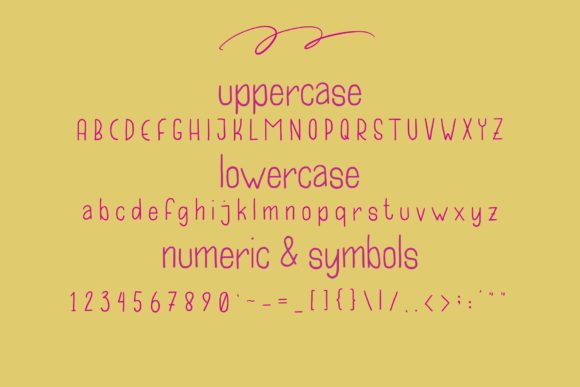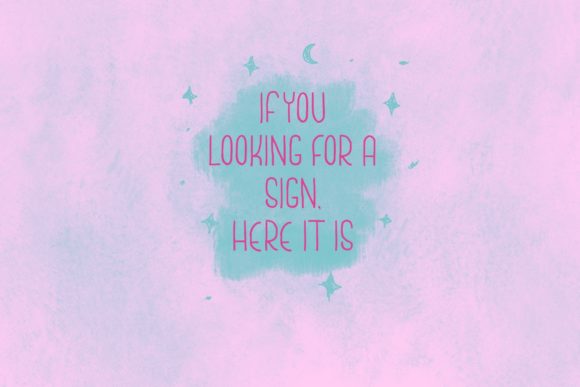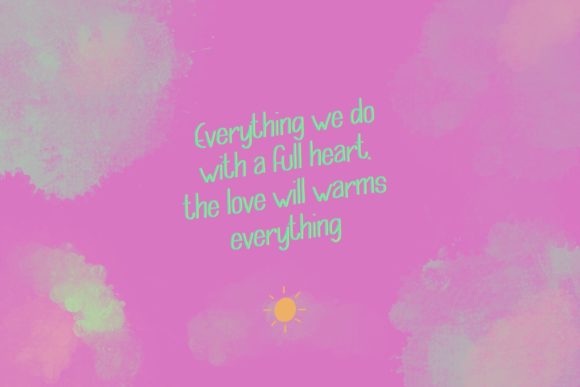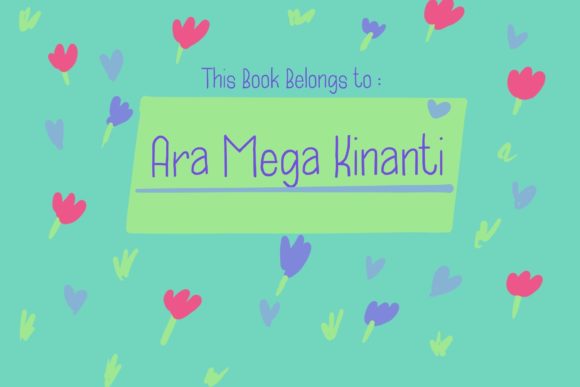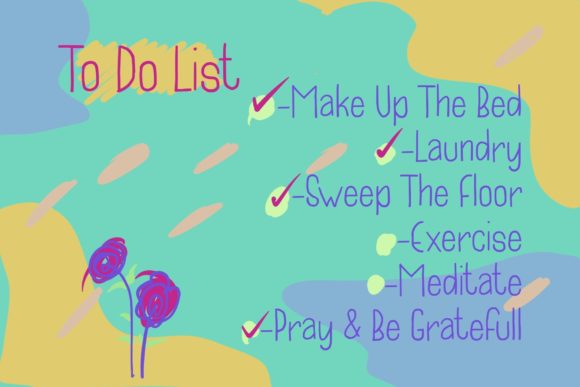
Introduction to First Saturday Font
Who else remembers the nostalgia of writing with chalk on a weathered chalkboard in a classroom? The tactile feel, the sound of the chalk scratching against the surface, and the look of the handwritten letters as they lingered on the board. For designers, capturing that authentic feel in digital designs can be a challenge. But, with the right design resource, you can transport your audience back to those carefree days of learning.
That’s where the First Saturday Font comes in – a high-quality, free download that adds a personal and realistic touch to your designs. This simple yet elegant font is perfect for all sorts of creative projects, from teaching materials to chalkboard quotes. With its transparent background, you can easily integrate it into your designs, making it a valuable addition to your design arsenal.
Key Features of First Saturday Font
- High-quality design: The First Saturday Font is a professional-grade font, perfect for any creative project that requires a high level of sophistication.
- Transparent background: This font features a transparent background, making it ideal for use on top of images or videos, allowing for a seamless design experience.
- Large character set: The First Saturday Font includes a wide range of characters, including uppercase and lowercase letters, numbers, and punctuation marks.
- Unique design style: The First Saturday Font features a unique, modern design style that is sure to add a touch of creativity to any project.
Honest Review: First Saturday Font
I recently stumbled upon the First Saturday Font, a free design resource that’s perfect for a creative project. As a designer, I appreciate high-quality fonts that can elevate the overall aesthetic of my work.
What works well for this font is its unique and stylish design. The transparent background and the subtle texture give it a sophisticated look that’s perfect for modern designs. The font is also highly customizable, making it a great addition to any design resource collection.
- ⚠️ Limited character set: The font only includes a basic set of characters, which may not be suitable for complex designs.
- ⚠️ Not ideal for large-scale projects: The font may not be optimized for high-resolution printing or large-scale displays.
Overall, the First Saturday Font is a great addition to any design collection. While it may have some limitations, its unique design and high-quality feel make it a valuable resource for designers working on creative projects.
Introduction to First Saturday Font
The First Saturday Font is a high-quality design resource ideal for creative projects. This versatile font features a transparent background, making it perfect for various design applications.